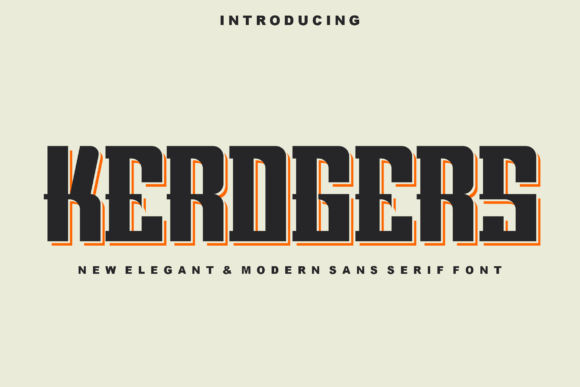
Embark on a typographic journey with Kerogers, the font that captures the spirit of innovation and boldness. Its robust slab serif strokes exude strength and stability, while its carefully crafted details hint at a touch of sophistication. Dive into a world of creative possibilities with Kerogers, a font that's not just a collection of letters, but a gateway to impactful visual communication.
Designed with the modern tech startup in mind, Kerogers embodies the essence of disruption and progress. Its sharp edges and geometric forms evoke a sense of cutting-edge technology and forward-thinking ideas. Whether you're crafting a captivating logo, designing a sleek website, or creating eye-catching marketing materials, Kerogers will elevate your designs to new heights.
With its versatility and adaptability, Kerogers transcends the boundaries of tech startups. Its bold presence lends itself to a myriad of branding projects, including t-shirt printing, e-sports, and countless other creative endeavors. Unleash your imagination and explore endless possibilities as Kerogers transforms your designs into unforgettable expressions of your brand's identity.
Feel the rush of inspiration as you witness Kerogers seamlessly adapt to a spectrum of contexts. Its innate charm shines through in print and digital media alike, ensuring that your messages resonate with your audience no matter the platform. From eye-catching headlines that demand attention to elegant body copy that captivates readers, Kerogers is your trusted companion in delivering impactful communication.
Join the ranks of creative visionaries who have embraced Kerogers as their font of choice. Let its powerful presence amplify your brand's message, leaving an indelible mark on your audience's minds. Embrace the limitless possibilities that await you with Kerogers, the font that ignites innovation and propels your creative endeavors to new frontiers.